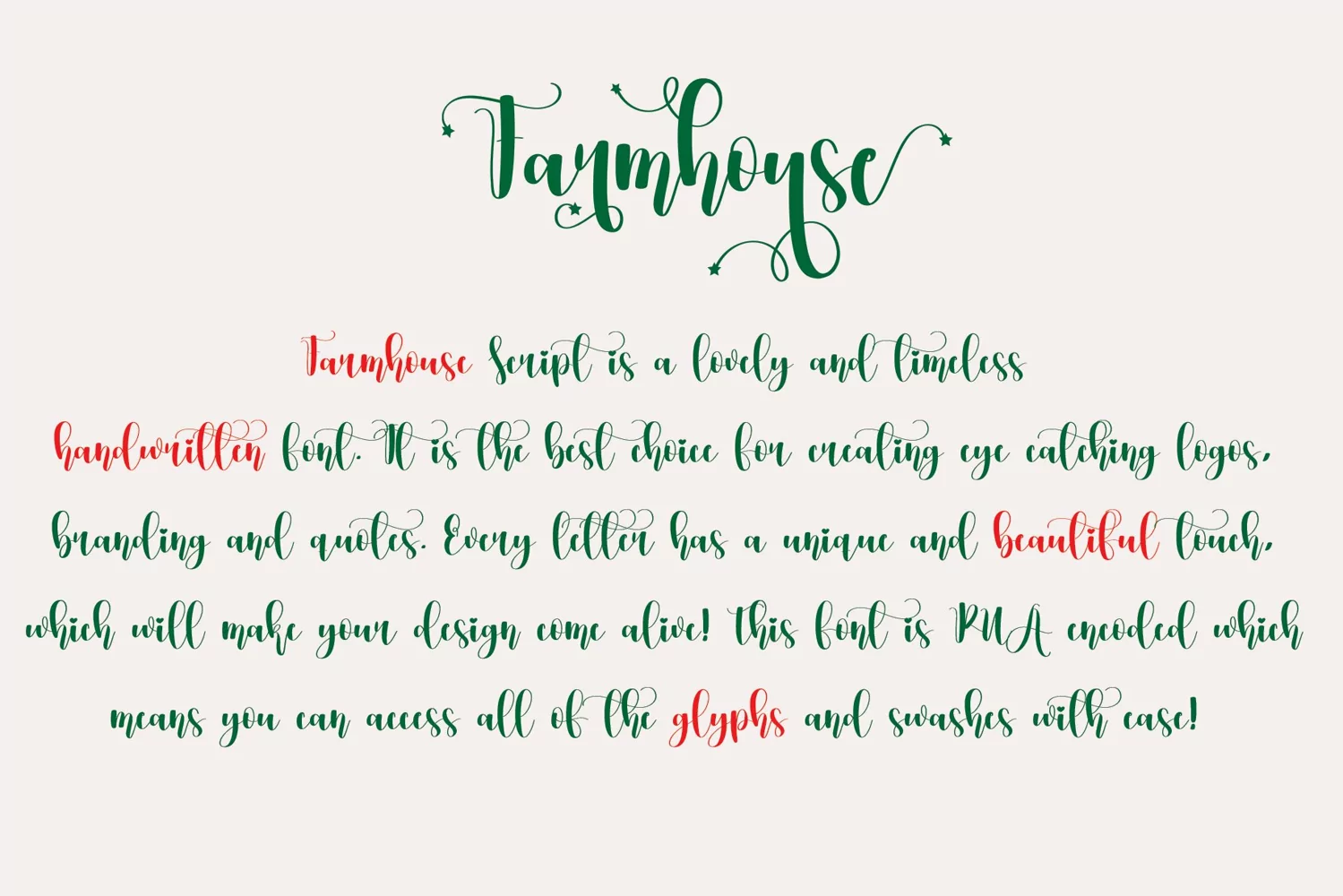
Farmhouse | Script font
Farmhouse Font is a popular and professional script font. It is Modern and elegant, this typeface is made of beautiful, creative strokes.